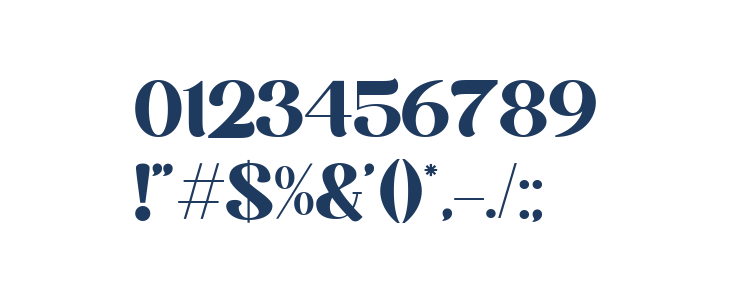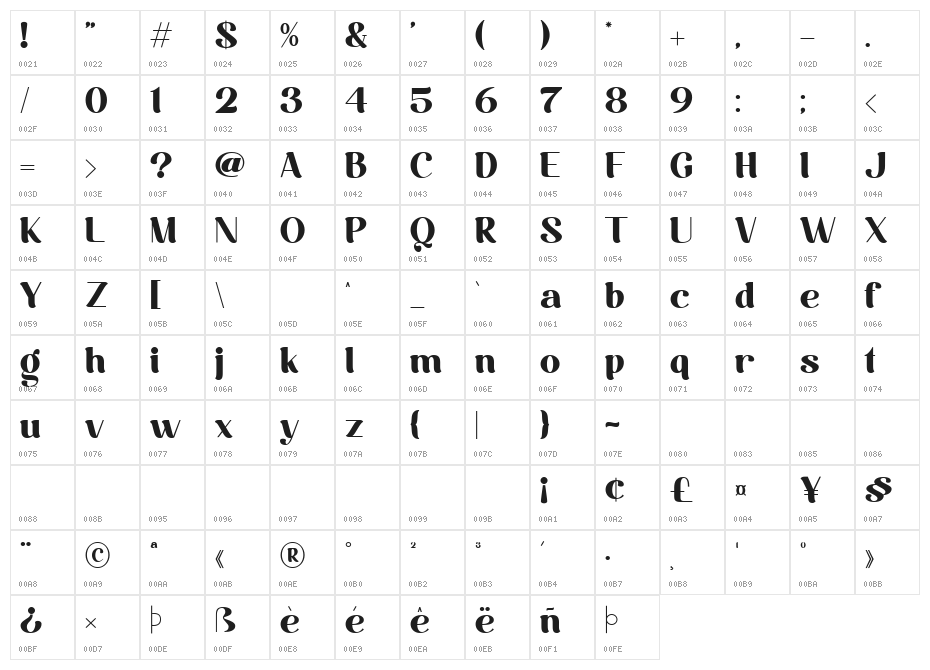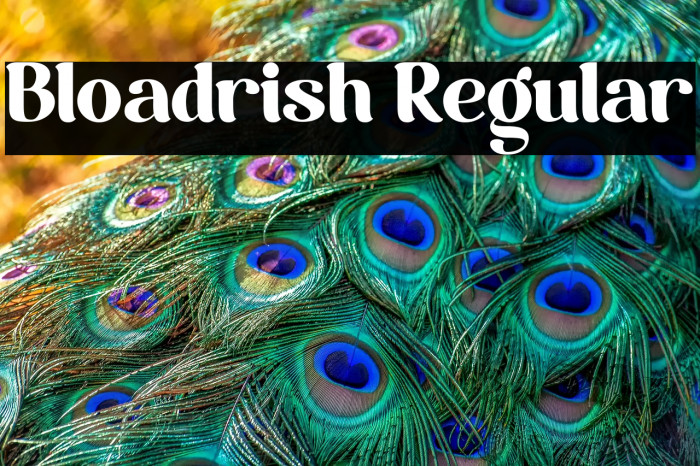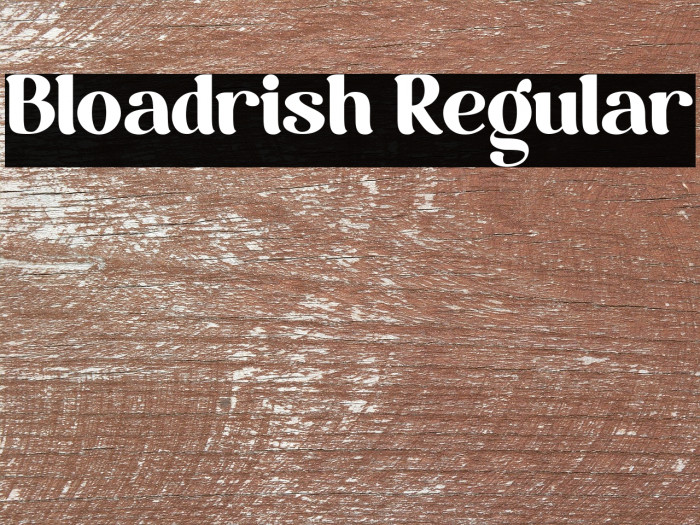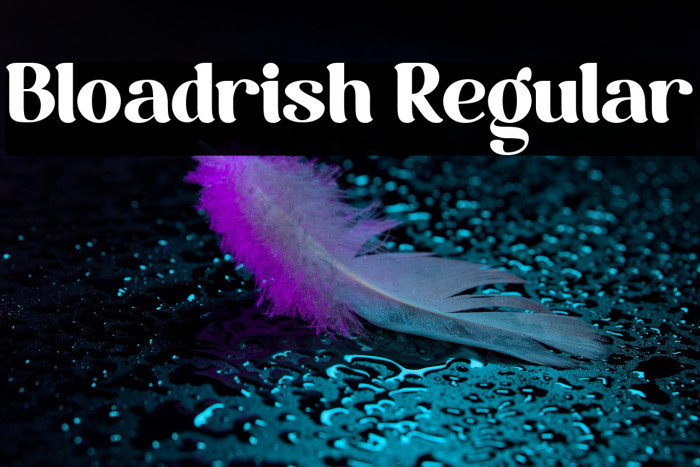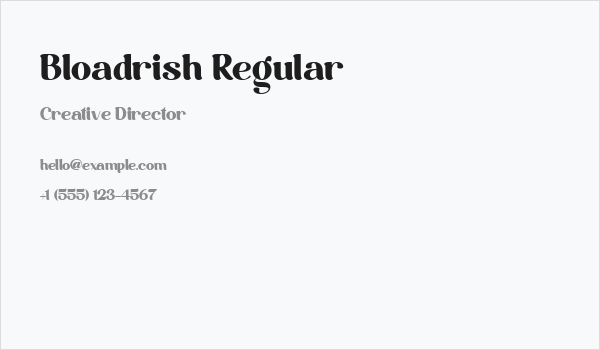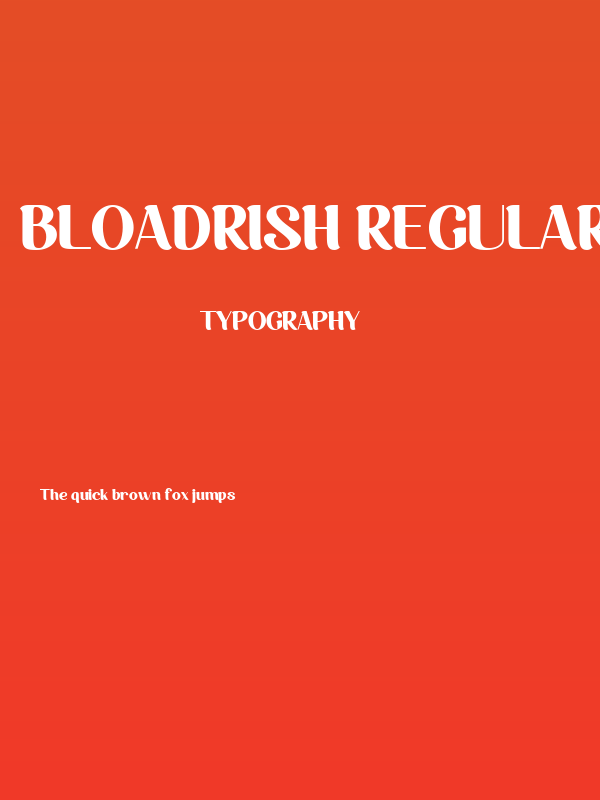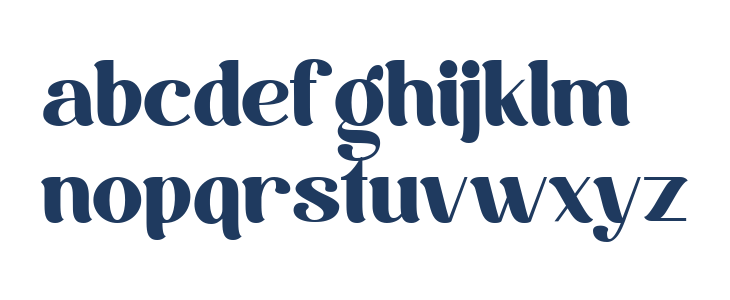
Bloadrish Regular Font
Bloadrish Regular Description
This font features a bold and striking design with high contrast between thick and thin strokes, giving it a dramatic and eye-catching appearance. The characters are crafted with a modern flair, incorporating unique curves and angles that add a sense of movement and elegance. The uppercase letters are particularly bold, while the lowercase letters maintain a consistent style that complements the overall aesthetic. The numerals are designed to match the boldness of the alphabet, ensuring a cohesive look across all characters. Special characters are included, each maintaining the same bold and dynamic style, making this font versatile for various design needs.
ContrastHigh
Overall StyleModern
Use CaseHeadlines, Logos, Posters
Proposed ProjectsIdeal for branding, headlines, posters, and any project requiring a strong visual impact.